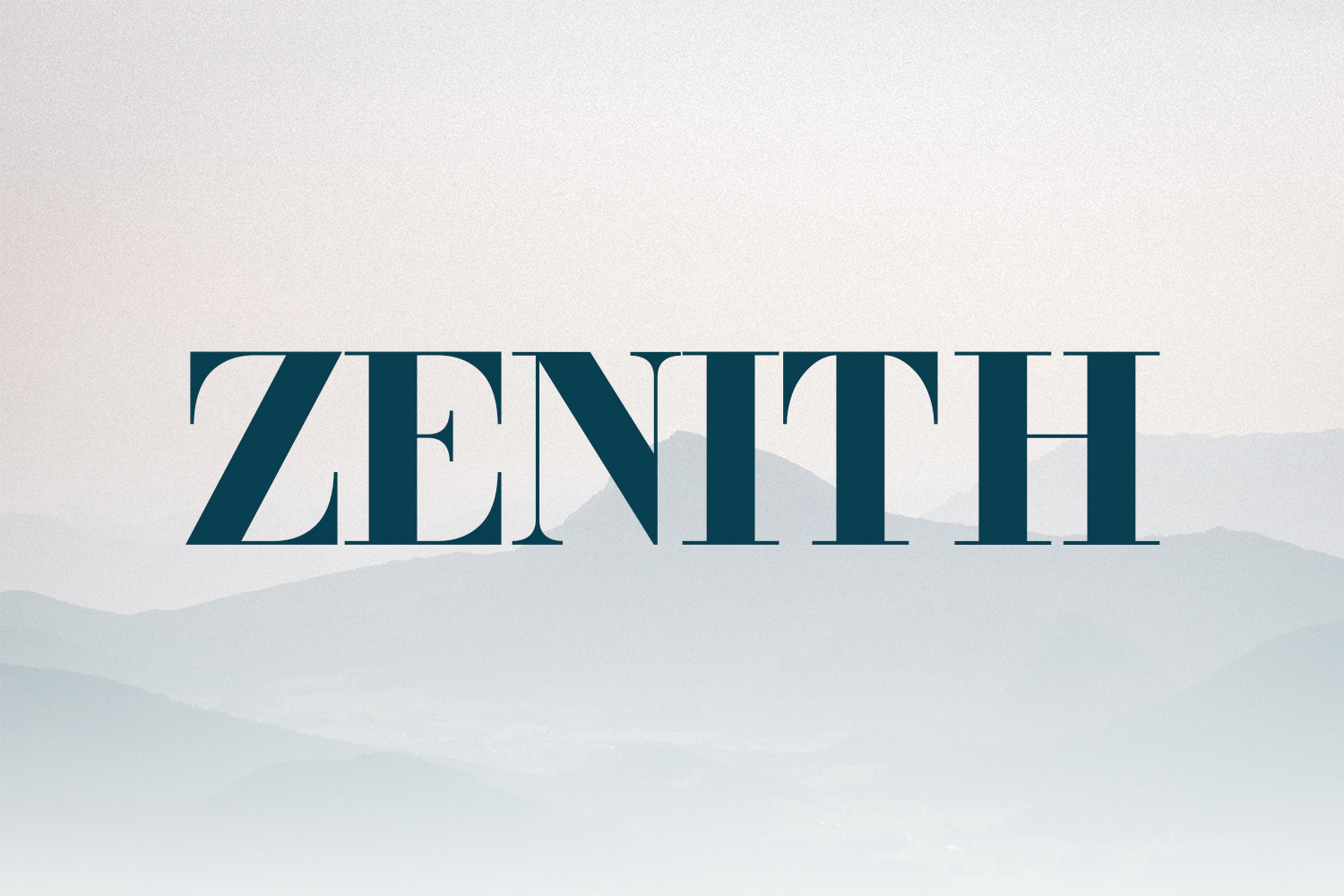
ZENITH - Modern Luxury Serif Font
ZENITH is a high-contrast modern serif engineered for maximum visual impact and professional clarity. It is a typeface that commands attention through dramatic geometry and razor-sharp precision. Designed with a perfect balance between bold structural stems and delicate hairlines, Zenith is the ultimate tool for designers who need to convey a sense of authority, excellence, and premium quality.
Whether you are crafting a corporate logo, high-end packaging, or a sleek website header, Zenith provides a sophisticated foundation that speaks of success and meticulous attention to detail.
- Dramatic Contrast: Optimized for headlines, titles, and high-impact branding.
- Geometric Precision: Refined curves and sharp serifs for a crisp, high-definition look.
- Distinctive Ball Terminals: Adds a layer of unique character to a classic structure.
- Professional Versatility: Seamless performance across digital and print media.